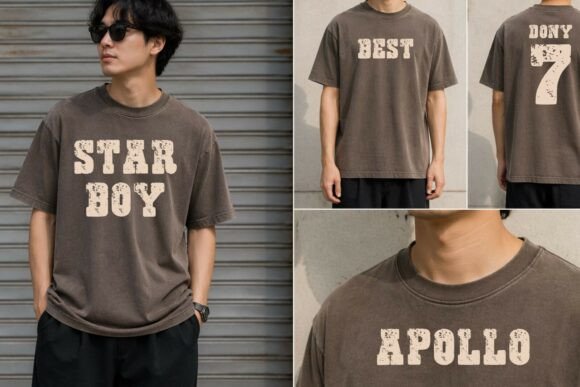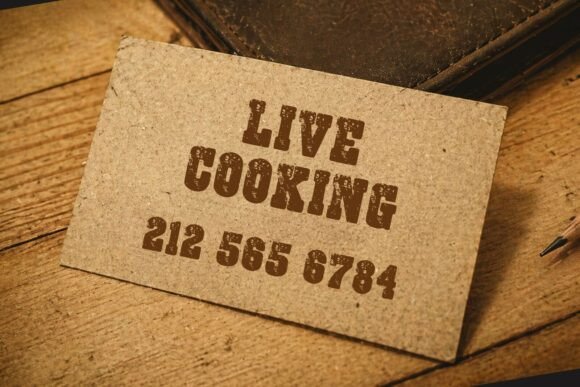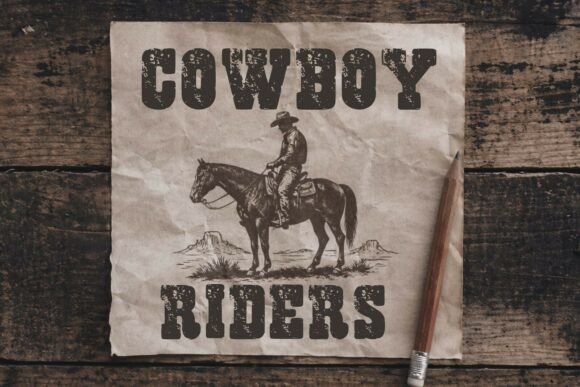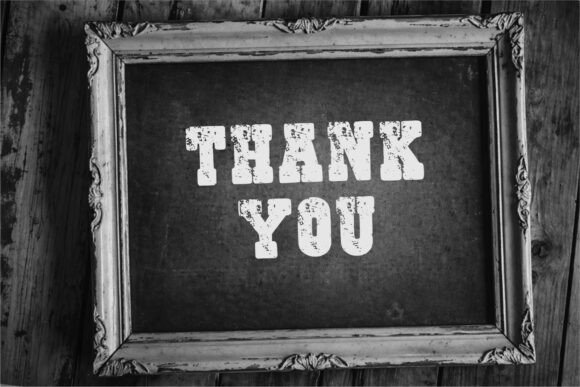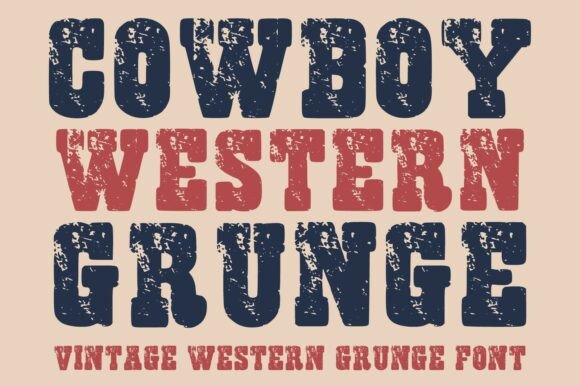
Cowboy Western Grunge Font: Unleash the Wild West Spirit in Your Designs
Are you looking for a font that embodies the rugged, adventurous spirit of the Wild West? Look no further than the Cowboy Western Grunge Font. This bold, vintage display font is inspired by classic western typography and old western signage, bringing an authentic cowboy and frontier style to your designs.
The Essence of the Wild West
Cowboy Western Grunge Font is more than just a font – it’s an experience. Imagine the dusty streets of a frontier town, the rough-riding cowboys, and the rustic wooden signs that line the streets. This font captures the essence of that era, with strong letterforms and rugged distressed textures that give your designs a bold, timeless feel.
Perfect for Western-Themed Projects
Whether you’re designing posters, logos, apparel, branding, packaging, signage, or rustic design projects, Cowboy Western Grunge Font is the perfect choice. Its unique blend of vintage charm and rugged texture adds a touch of authenticity to any design, making it perfect for:
- Western-themed posters and flyers
- Logos and branding for cowboy-inspired businesses
- Apparel and accessories, such as t-shirts, hats, and bandanas
- Packaging and labeling for rustic products
- Signage and advertising for western-themed events
Key Features of Cowboy Western Grunge Font
So, what makes Cowboy Western Grunge Font so special? Here are some of its key features:
- Bold and strong letterforms: Perfect for making a statement and grabbing attention
- Rugged distressed textures: Add a touch of authenticity and vintage charm to your designs
- Authentic western feel: Inspired by classic western typography and old western signage
- Versatile: Suitable for a wide range of design projects, from posters to packaging
Why Choose Cowboy Western Grunge Font?
In a world where fonts are a dime a dozen, Cowboy Western Grunge Font stands out from the crowd. Here are just a few reasons why designers and crafters love this font:
- Unique and distinctive: Add a touch of personality to your designs with this one-of-a-kind font
- Easy to read: Despite its distressed texture, Cowboy Western Grunge Font remains clear and legible
- High-quality design: Professionally designed to ensure a high level of quality and craftsmanship
Tips for Using Cowboy Western Grunge Font
To get the most out of Cowboy Western Grunge Font, here are a few tips:
- Use it boldly: Don’t be afraid to use this font in large sizes to make a statement
- Pair it with contrasting fonts: Combine Cowboy Western Grunge Font with simpler fonts to create visual interest
- Experiment with colors: Try pairing this font with earthy tones, such as brown and beige, to create a rustic look
Cowboy Western Grunge Font is a bold, vintage display font that’s perfect for designers and crafters looking to add a touch of the Wild West to their projects. With its strong letterforms, rugged distressed textures, and authentic western feel, this font is sure to make your designs stand out. So why wait? Saddle up and unleash the wild west spirit in your designs with Cowboy Western Grunge Font.